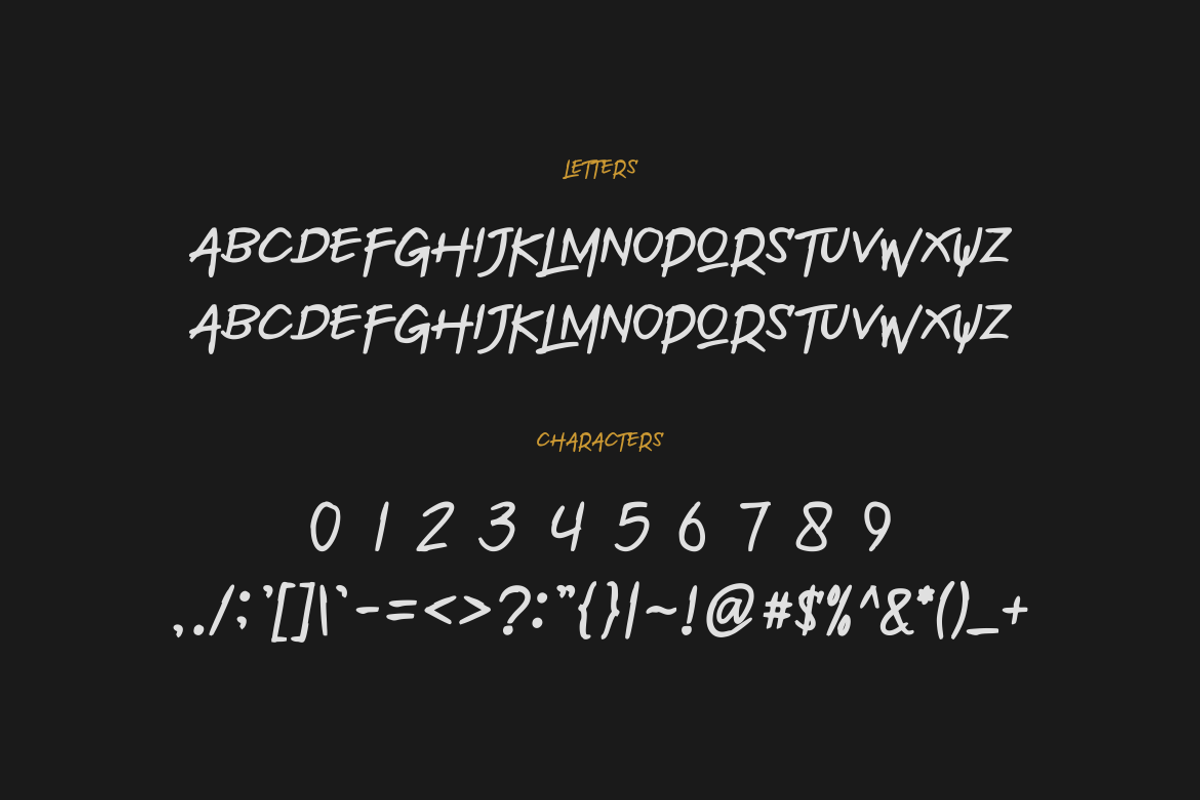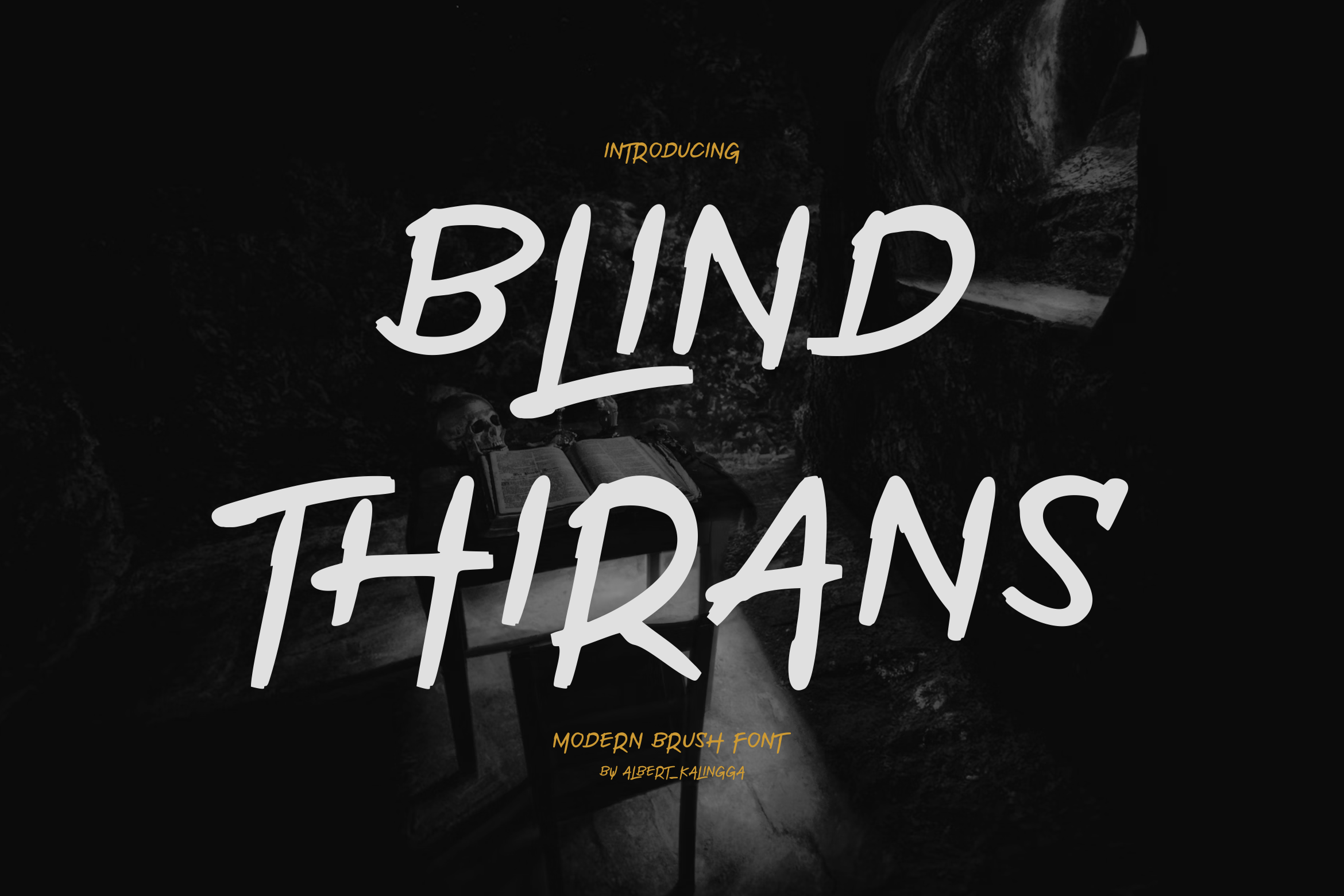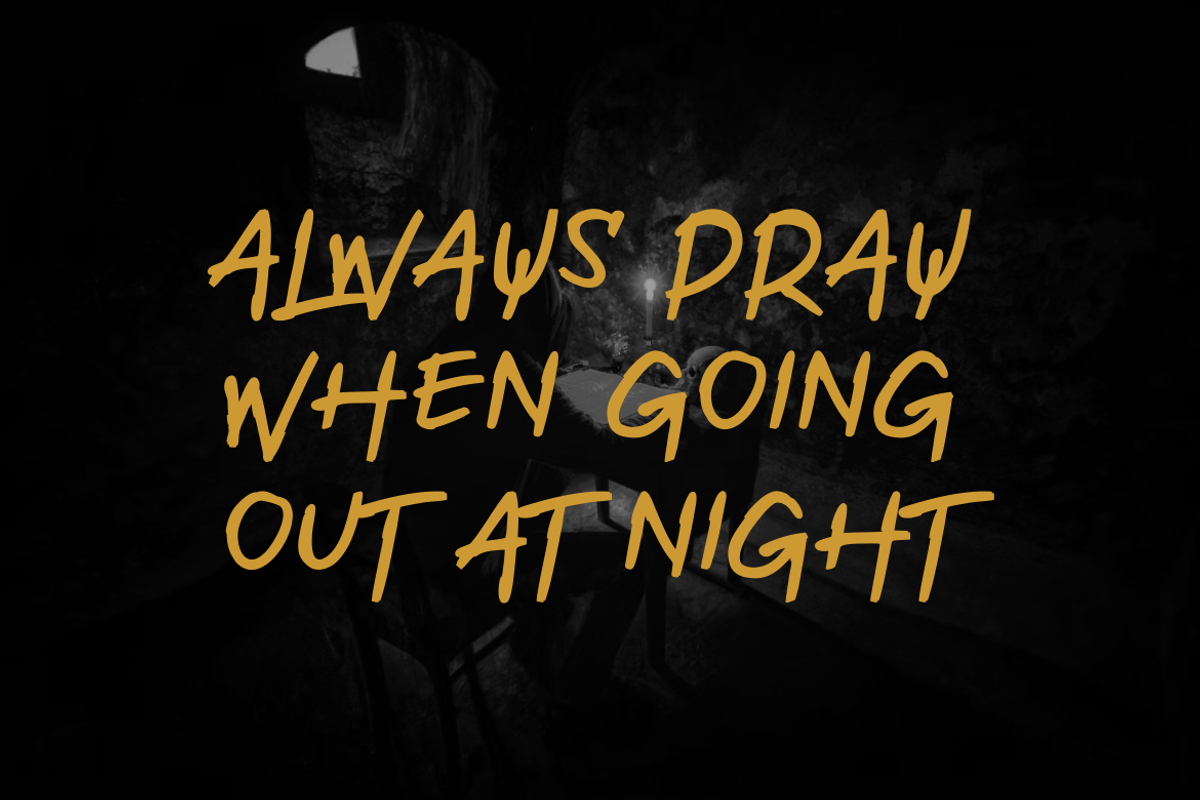
Blind Thirans Font
Introducing our new product Blind Thirans Font - Modern Font
Blind Thirans Font - Modern Font is a bold and authentic display font. The font is suitable for any branding project like logo, esport, and many more. outstanding in a wide range of contexts.